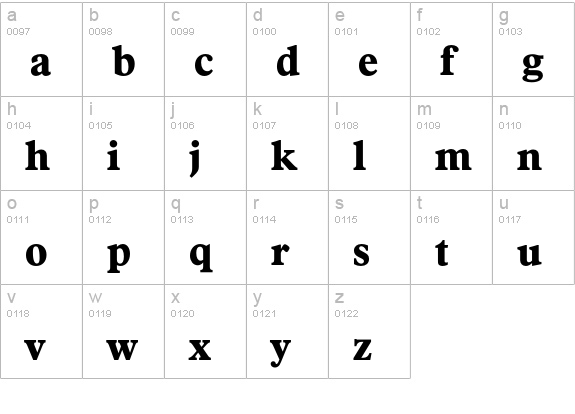
Francisco-Bold is a strong, high-contrast variant in the Francisco typeface family \xE2\x80\x94 well suited to headlines, attention-grabbing titles, and strong calls-to-action.
Francisco-Bold font is a stunning display typeface that exudes modern elegance and sophistication. With its bold and striking design, this font is perfect for creating eye-catching headlines, titles, and logos that demand attention. The sleek lines and sharp angles of Francisco-Bold make it a versatile choice for a wide range of design projects, from branding to posters to packaging. What sets Francisco-Bold apart is its unique blend of strength and elegance, making it a standout choice for projects that require a touch of boldness. Whether you're designing a sleek business card or a striking billboard, Francisco-Bold will ensure your message stands out in style. Best of all, Francisco-Bold is available for free download at FontsMarket.com. So go ahead and elevate your designs with this stunning typeface today!